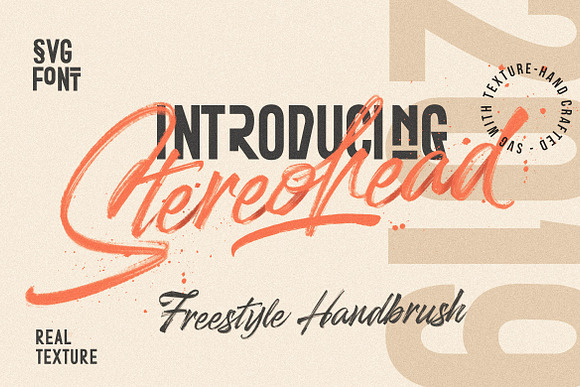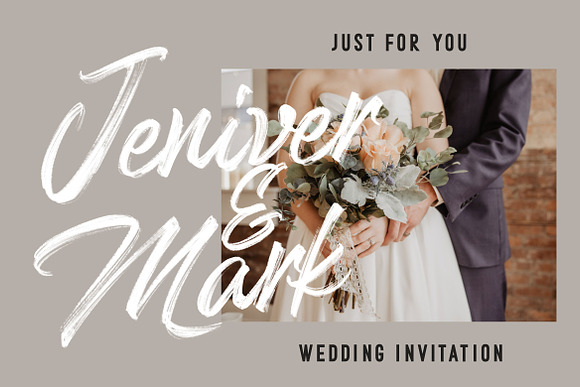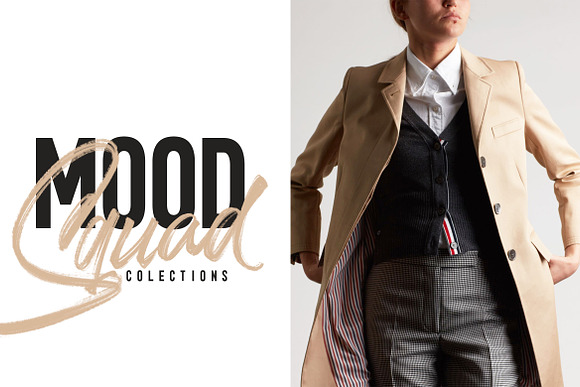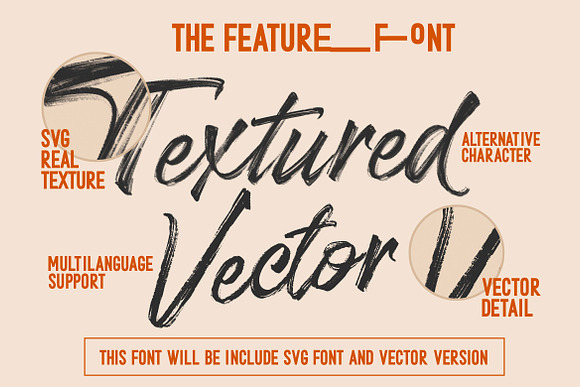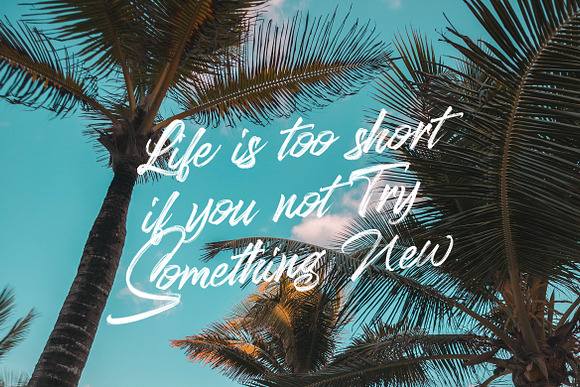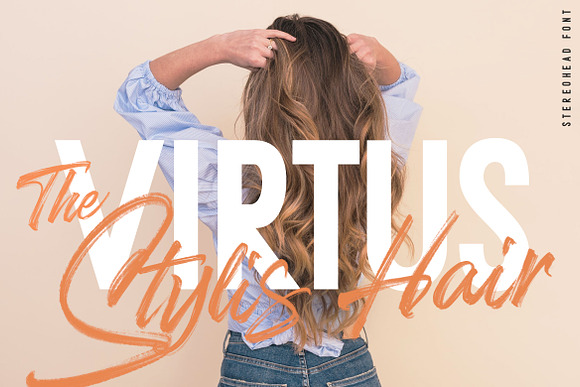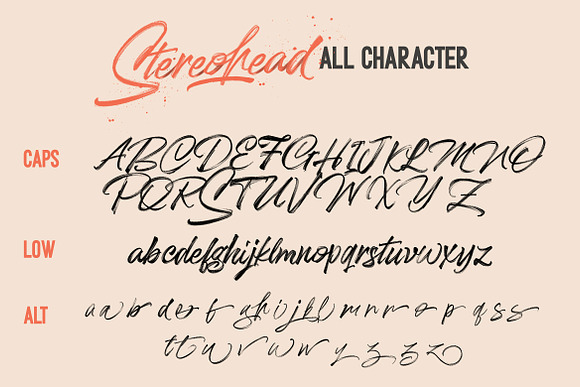
Stereohead Brush Font SVG
Stereohead Brush Font SVG is perfect for logos, poster designs, social media graphics, packaging, and creative branding projects. Its hand-drawn brush style with SVG color effects adds a dynamic and artistic flair to any design.
What makes Stereohead Brush Font SVG exciting is its expressive, textured strokes that bring energy, personality, and depth to your text. The font’s vibrant design ensures your project stands out with bold creativity.
The Stereohead Brush Font SVG family includes Regular, Bold, and Color SVG variations, providing designers flexibility to create visually striking and unique typographic compositions.